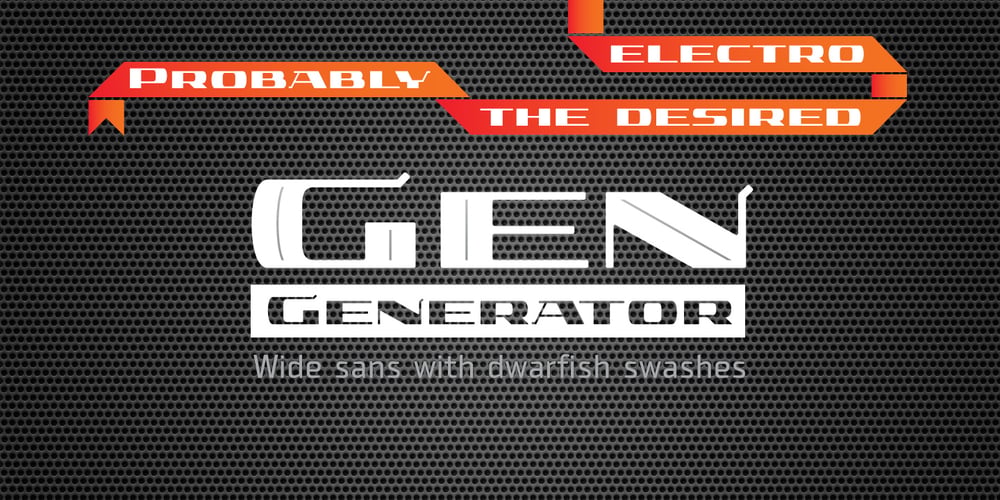
Gen font
Gen Font Family was designed by Valery Zaveryaev and published by Gaslight. Gen contains 2 styles and family package options. Gen (erator) is inspirited by lettering from the soviet era: sometimes brute, sometimes contrastful, but frequently with its own nature. Gen is a simple, contrastful, wide sanserif with numerous alternatives and cutter style.